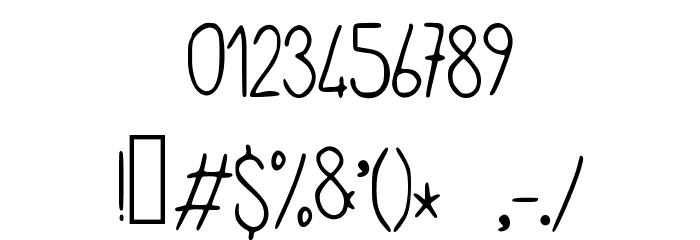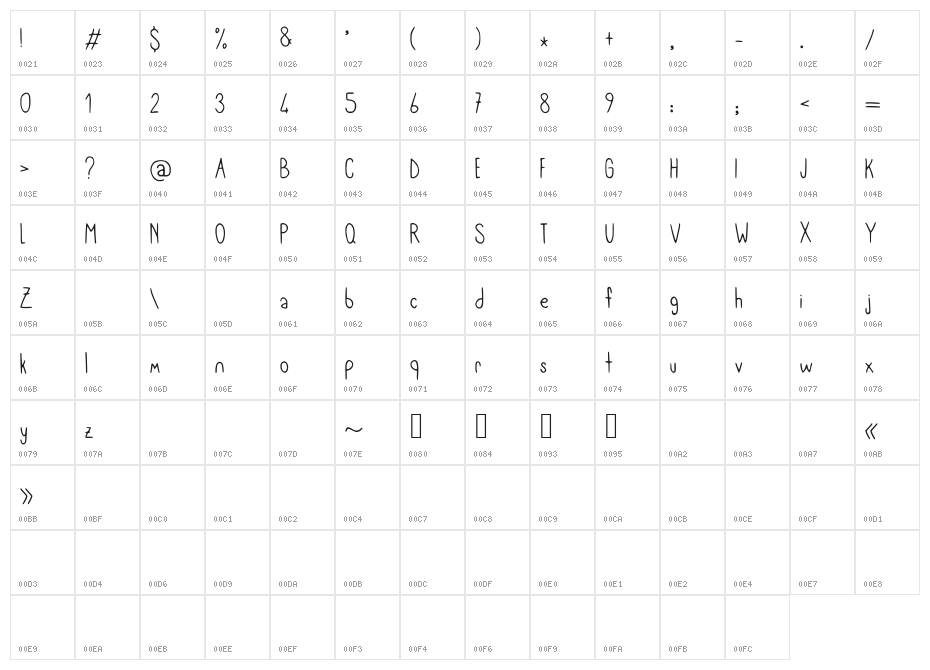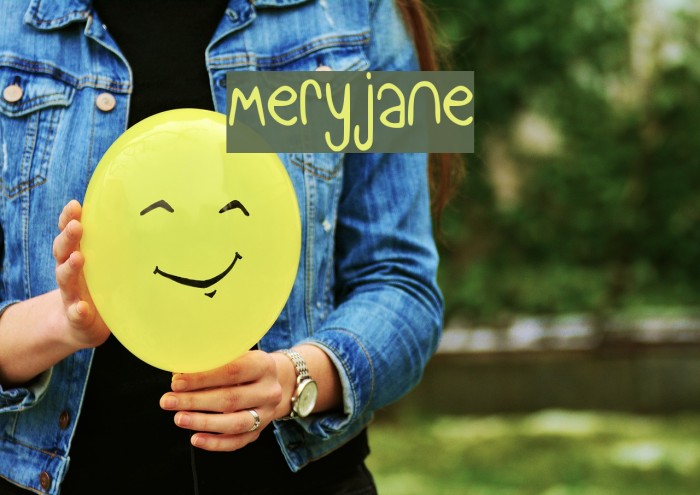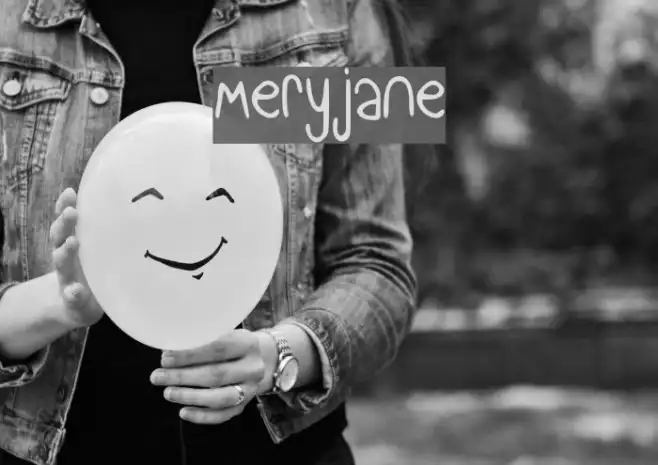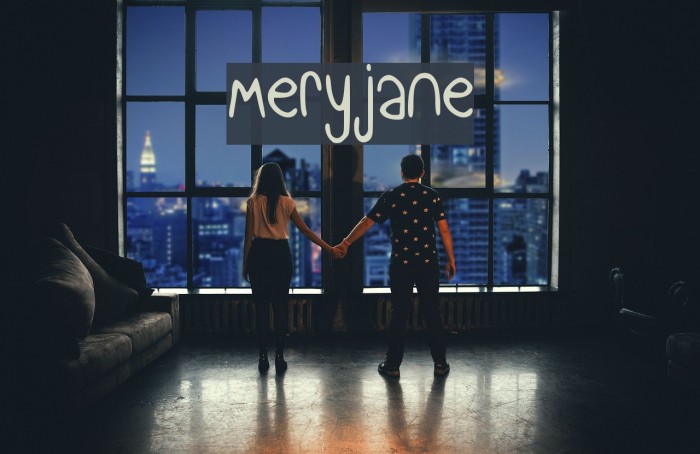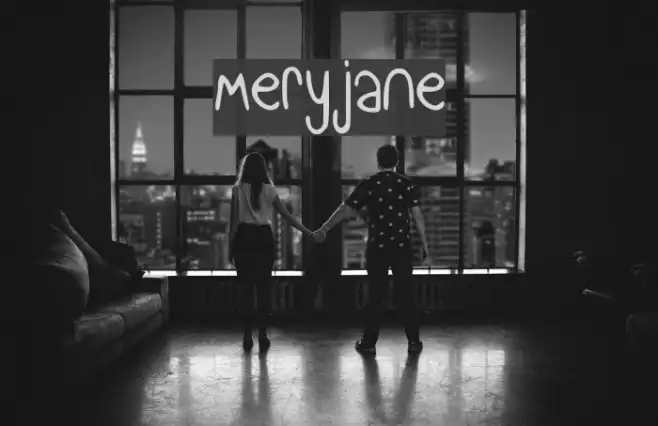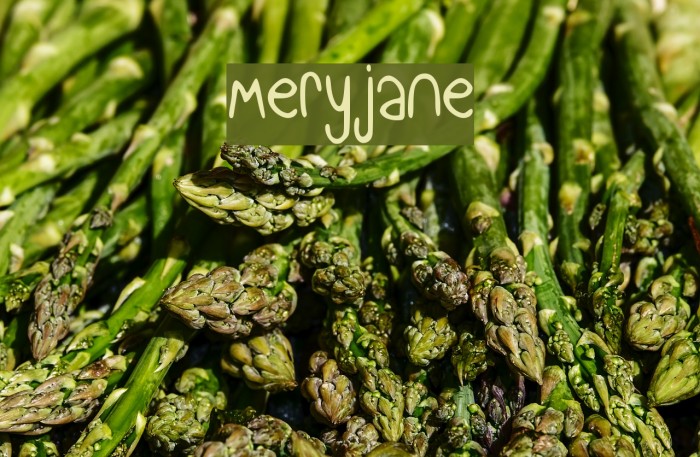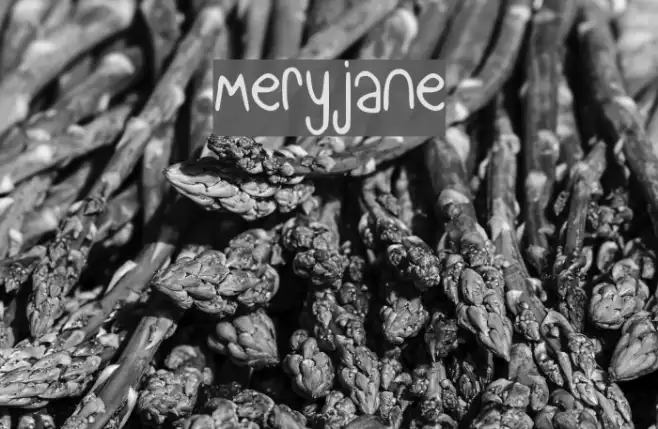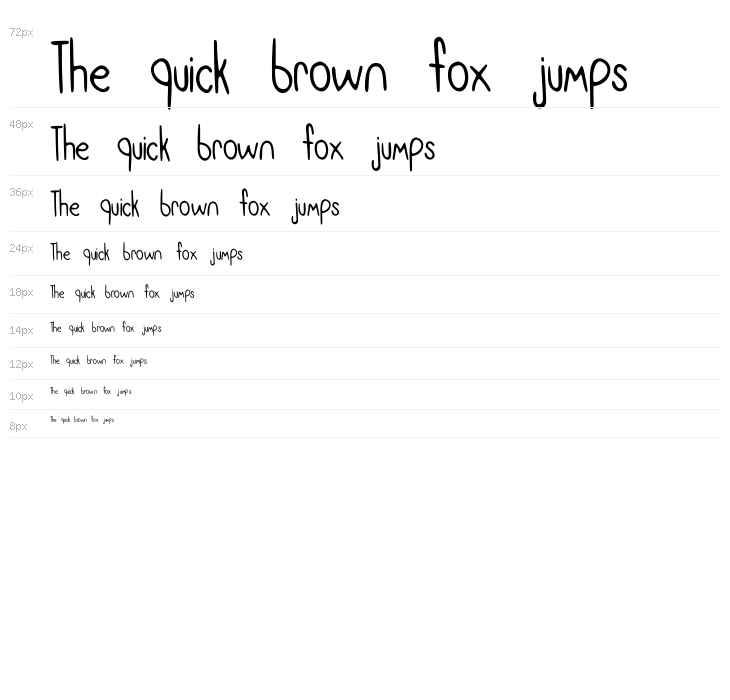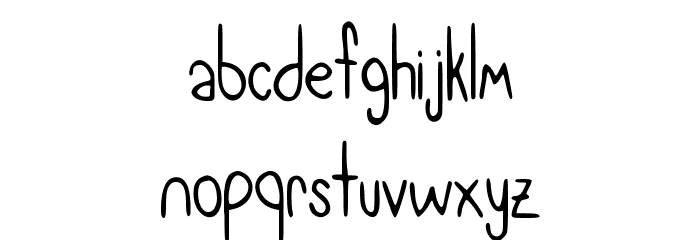
meryjane Font
meryjane Description
This font features a playful and whimsical style with a handwritten appearance. The letters are slightly irregular, giving it a casual and friendly feel. The uppercase characters are tall and narrow, while the lowercase letters maintain a consistent height, adding to the font's approachable nature. The numbers and special characters are designed to match the overall playful aesthetic, making it suitable for creative projects. The font's unique style is perfect for adding a personal touch to any design, with its slightly uneven strokes and charming character.
| Proposed Projects | Ideal for children's books, greeting cards, playful branding, and creative invitations. |